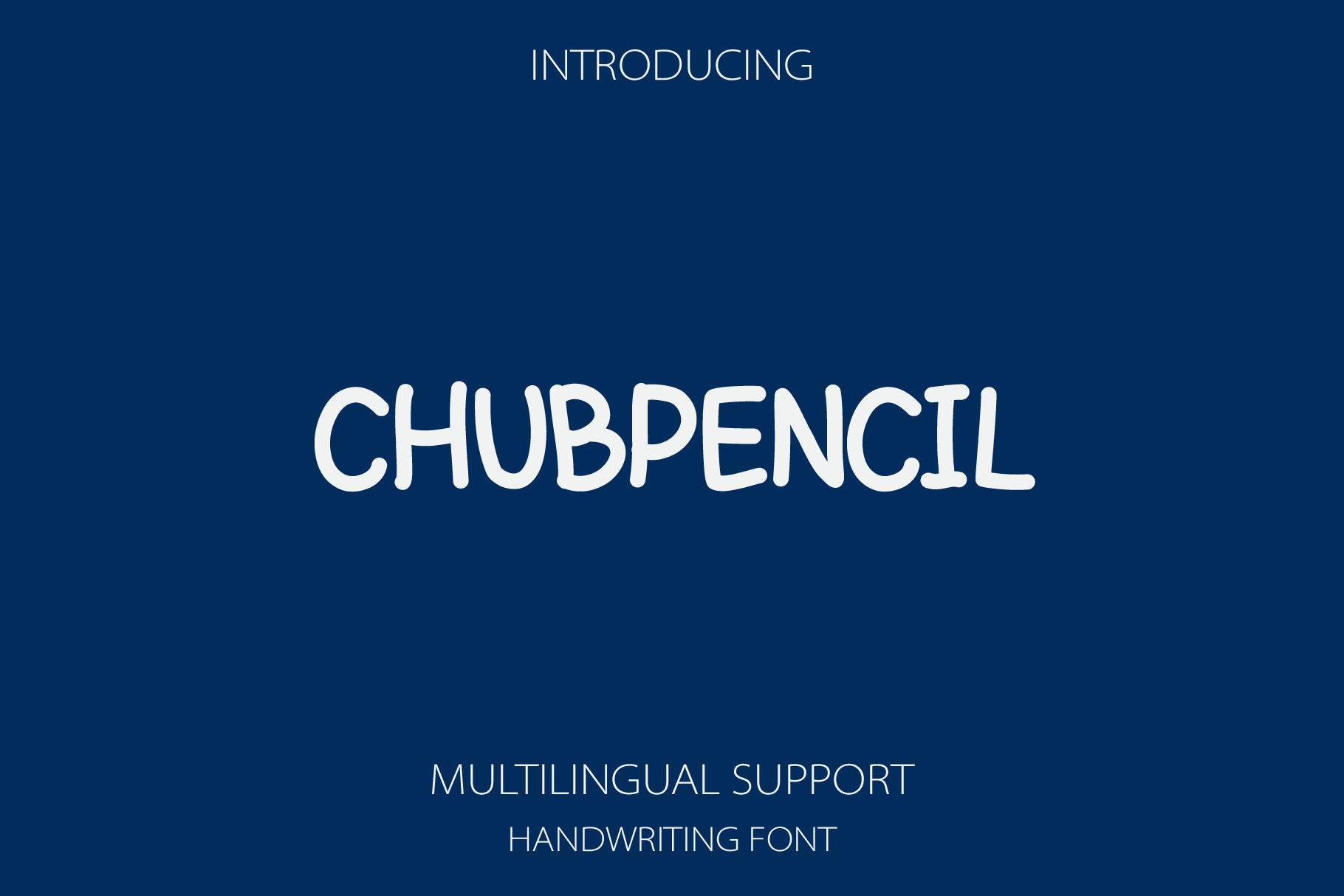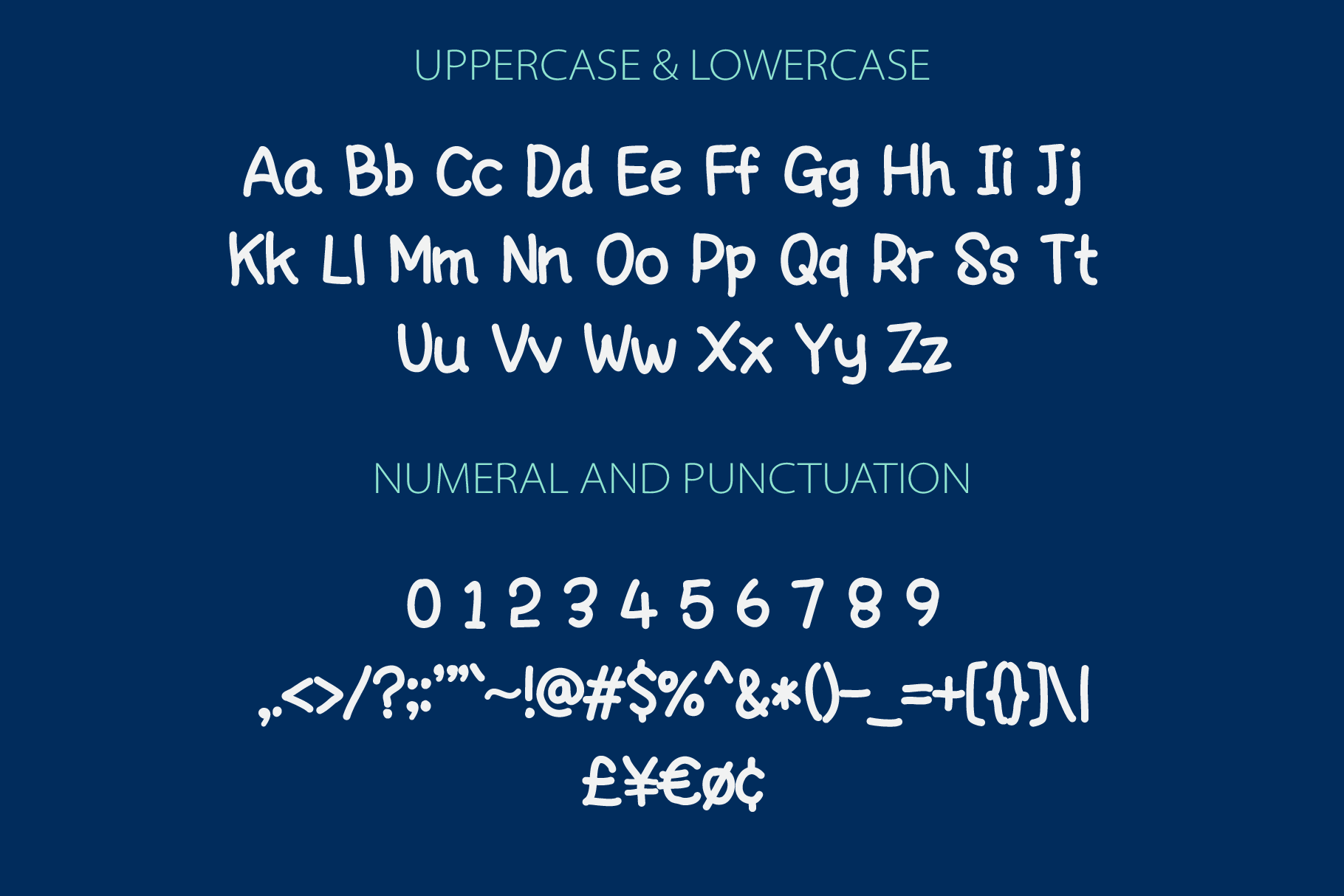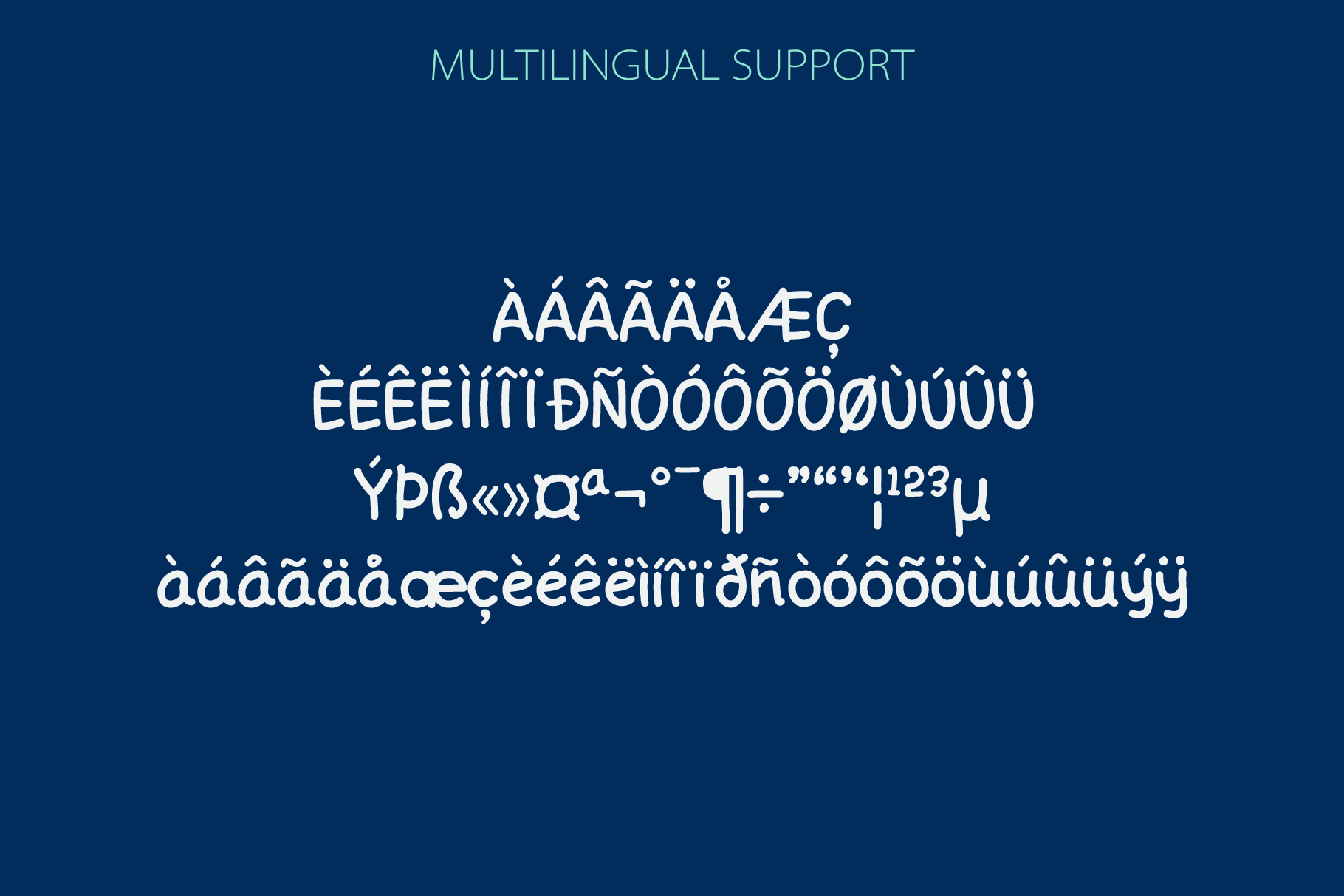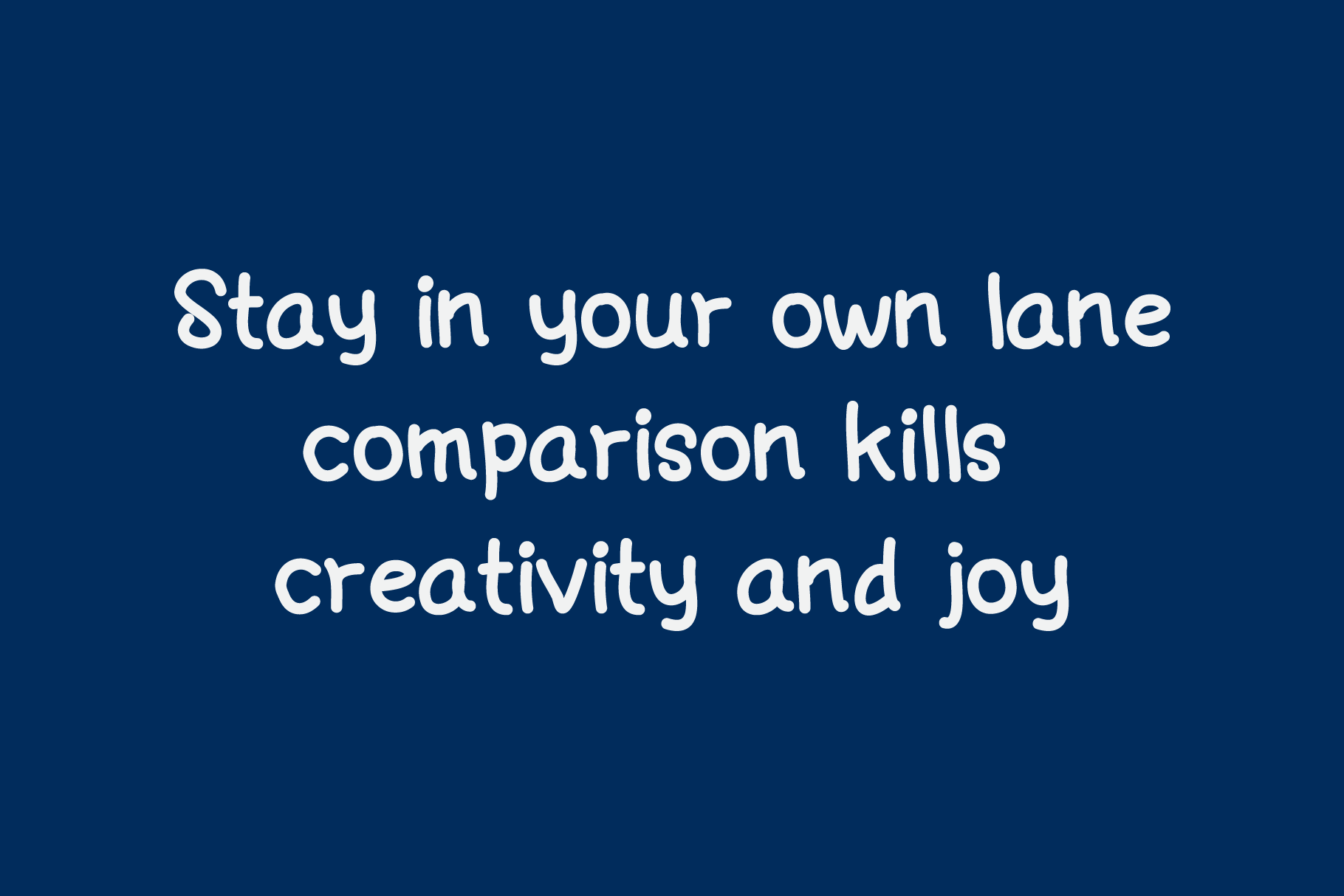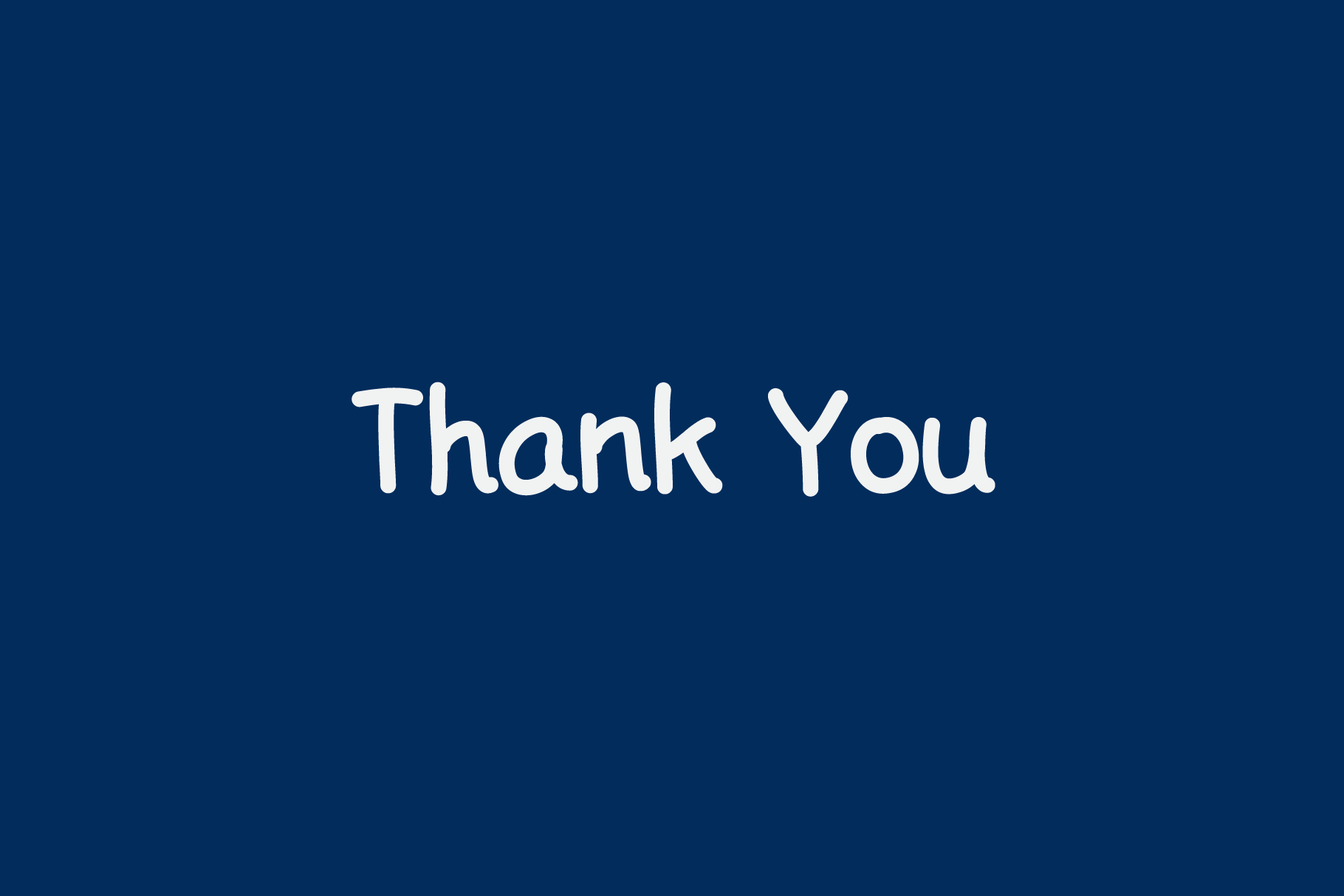
Chubpencil is a Handwritten font. It was inspired by notes. The font looks casual and playful. It’s perfect for handwritten notes, sweet greeting cards, beautiful quotes, and stand-out branding as well. Suitable for any design needs, branding, urban design, modern advertising design, Book/Cover Title, special events, adventures, headlines, clothing and more.